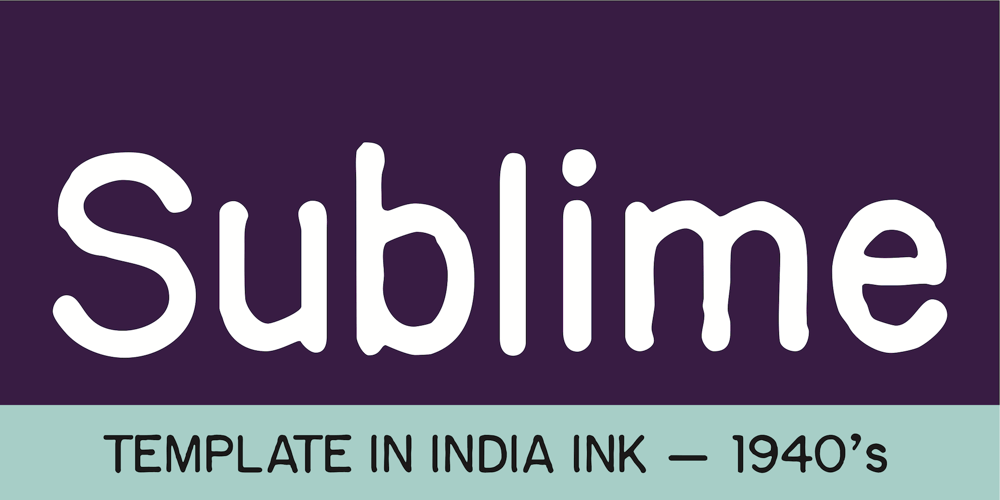
Sublime Font Family was designed by Joseph Coniglio and published by Coniglio Type. Sublime contains 1 styles and family package options. Sublime45-RegularSublime Revised for 2021. One font in Opentype format as Sublime45.Families and all TT Truetype versions eliminated in this wonderful stand alone.The Spring 1997 original release of Sublime —borne an organic creature of black water soluble ink & digitized by Coniglio Type. Sublime is a fun font to use in commercial layouts. It is soft and fluid as ink. Like the wrinkles of time, it is imperfect. That in itself makes it incredibly attractive, warm and “human factor”. Sublime offers legibility so sorely missed in the current recreational font market. Sublime was inspired by World War II US fighter pilot Donald Alling. He flew missions over Nazi Germany. His squadron also dropped food, medicine and relief supplies over the Netherlands. Known as “the Colonel” to his friends. Don as a civic engineer ruled literally miles of ink letter callout’s with a template device called a LeRoy in peacetime on vellum and mylar across his career as a technical illustrator. You didn’t want to screw up inking into a template with wet black permanent ink. You really had to have a steady hand and it was all done by hand. You can say Don worked “unplugged”. And that is cool! He was part of the broad stroke of postwar industrial expansion that helped keep America strong, rendering exploded views on top secret projects. Many of us were not even born yet when all this was going on. Today at over 80 years young Don is like a national treasure, savvy and bright—and the ladies love him! The Colonel remains a dedicated master airbrush man, stand–up man, caricature artist and letterman all without use of a computer! He was lucky enough to retire before a desktop cathode tube was put in his face. Today the Colonel enjoys restoring VW’s, flying and freelance consulting when not being called to supper by his lovely wife Rea.